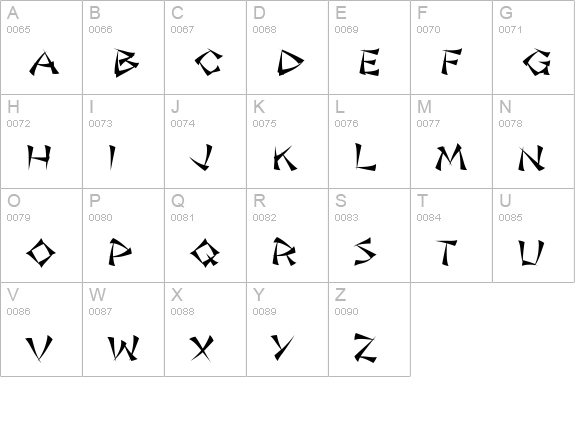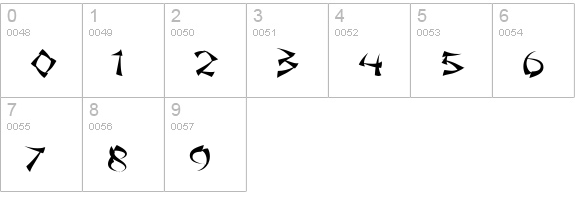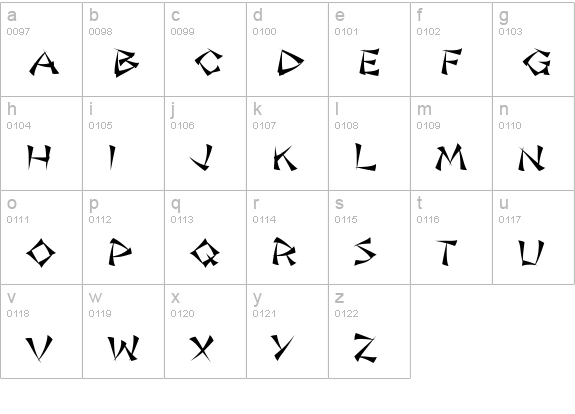
Introducing Jade Monkey BTN, a stunningly unique font that is sure to capture attention and elevate any project to new heights. With its intricate and stylish design, Jade Monkey BTN is the perfect choice for those seeking a font that stands out from the crowd. This font exudes an air of elegance and sophistication, making it ideal for a wide range of creative endeavors. Whether you are designing a logo, crafting a brand identity, or creating eye-catching headlines, Jade Monkey BTN will effortlessly bring your vision to life. One of the most exciting features of Jade Monkey BTN is that it is free to download at FontsMarket.com. This means that you can add this exceptional font to your collection without any cost, allowing you to explore its endless creative possibilities without limitations. The attention to detail in Jade Monkey BTN is truly remarkable, with each letter carefully crafted to ensure a harmonious flow and a visually stunning aesthetic. The unique curves and flourishes give this font a sense of movement and energy, making it perfect for designs that need to make a bold statement. Whether you are a professional designer, a creative enthusiast, or simply someone who appreciates the beauty of typography, Jade Monkey BTN is a must-have font in your toolkit. Its versatility, elegance, and the fact that it is freely available for download make it an invaluable asset for any project. Download Jade Monkey BTN today at FontsMarket.com and unlock a world of endless creative possibilities. Let this remarkable font be the catalyst for your next design masterpiece.